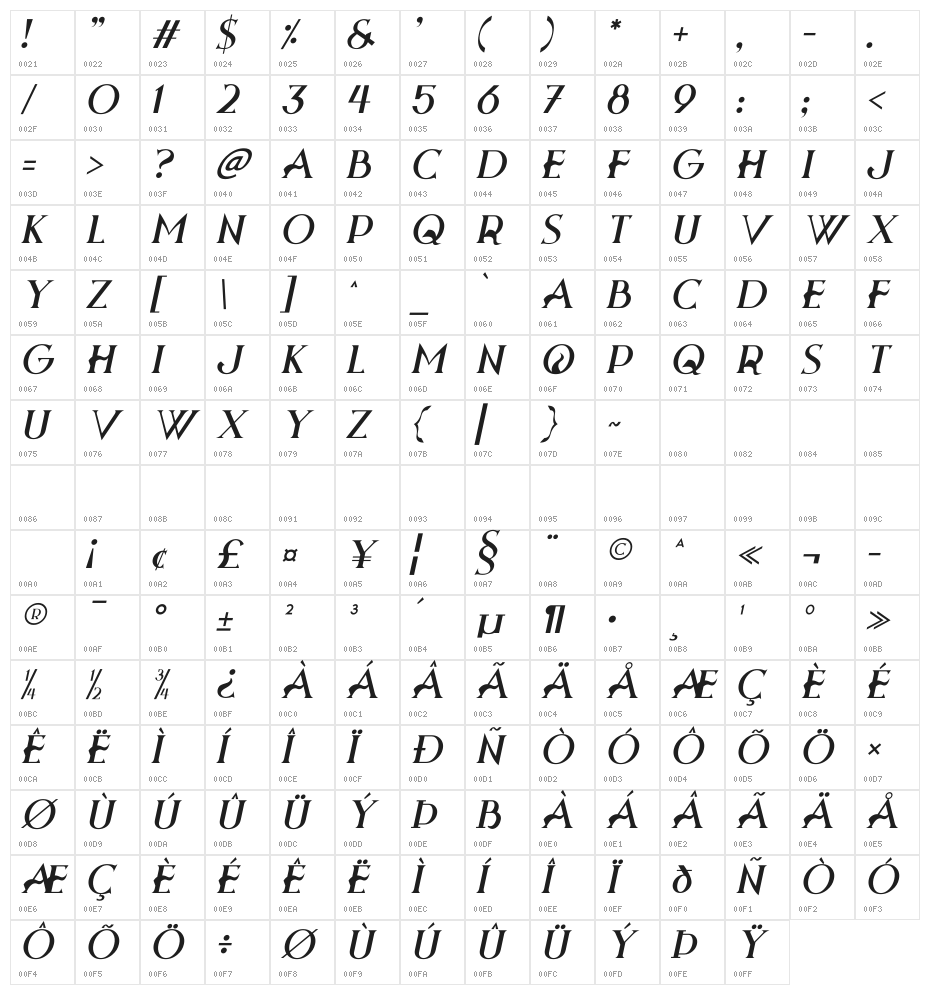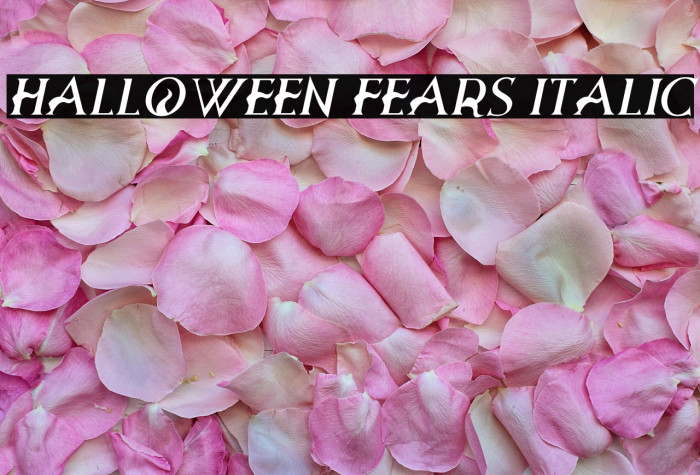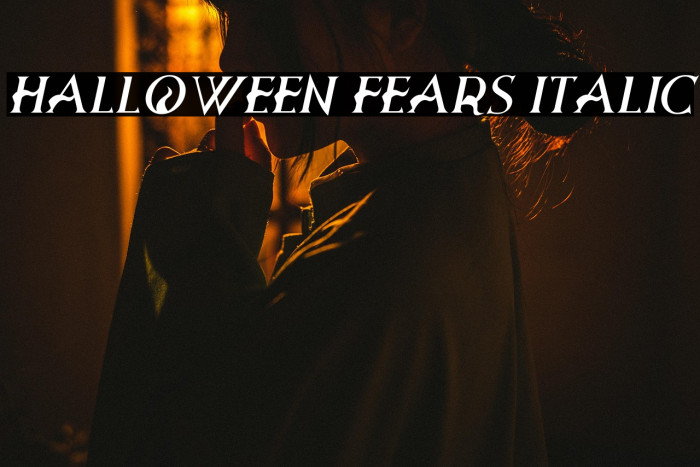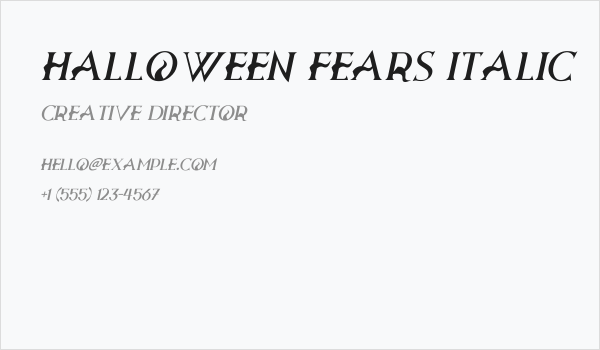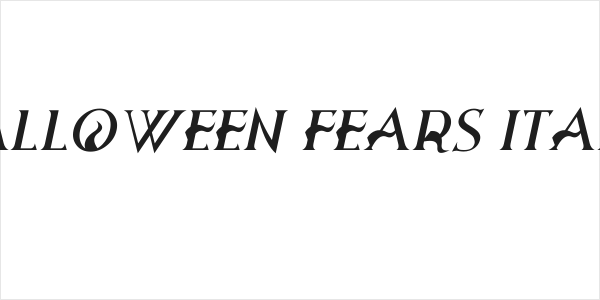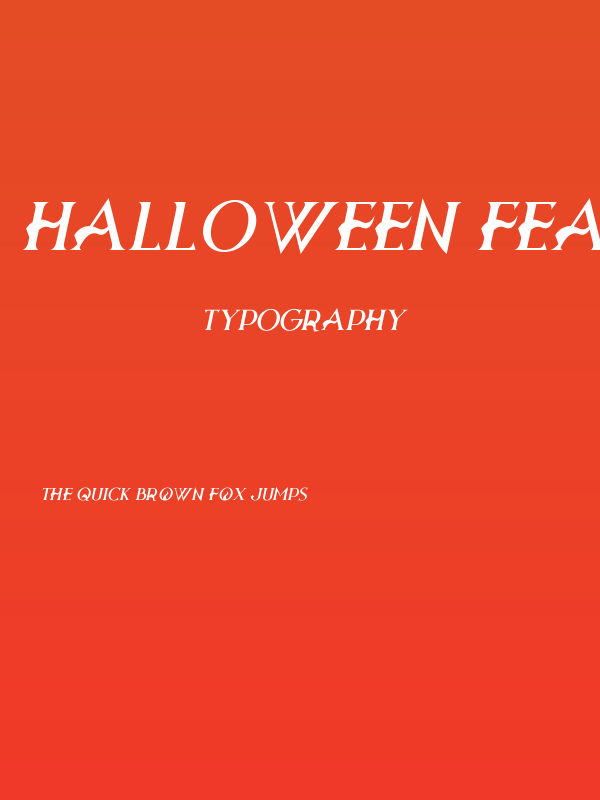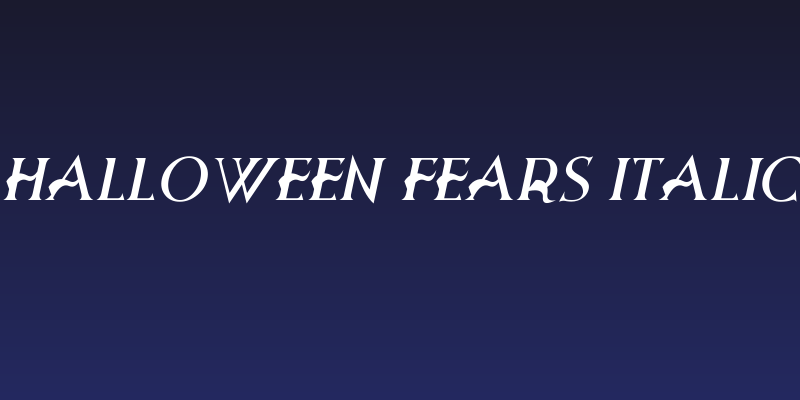
Halloween Fears Italic Font
Halloween Fears Italic Description
This font features a dramatic and bold italic style, characterized by sharp, angular serifs and a distinct slant that adds a sense of movement and urgency. The uppercase letters are particularly striking, with exaggerated strokes and a gothic flair that evokes a sense of mystery and intrigue. The lowercase letters maintain this aesthetic, offering a cohesive look across the typeface. Numbers and special characters are equally stylized, ensuring consistency throughout. The overall design is reminiscent of classic horror themes, making it ideal for projects that require a touch of the macabre or a vintage horror vibe.
| Overall Style | Gothic, Decorative |
| Use Case | Headlines, Logos, Themed Invitations |
| Proposed Projects | Ideal for Halloween-themed designs, horror movie posters, spooky invitations, and themed event branding. |